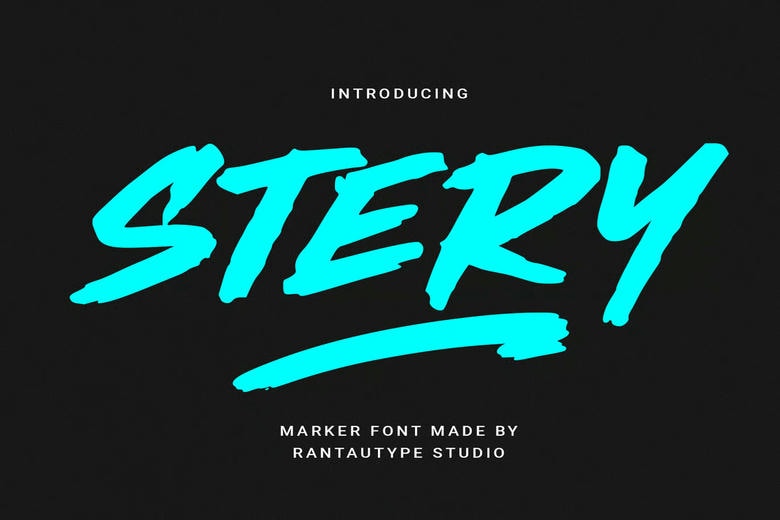
Stery Font
Stery is a marker font full of bold energy, natural movement, and personality. Inspired by real handwritten strokes, it shows the raw texture and smooth flow of a real marker, giving your designs a look that feels both relaxed and confident.
Stery works well for all kinds of creative projects, from logos and titles to social media posts, packaging, and event materials. Its modern style adds a fresh touch to any design.
Stery Brush Script Font